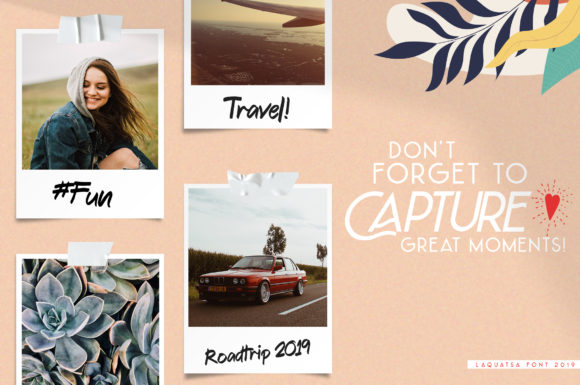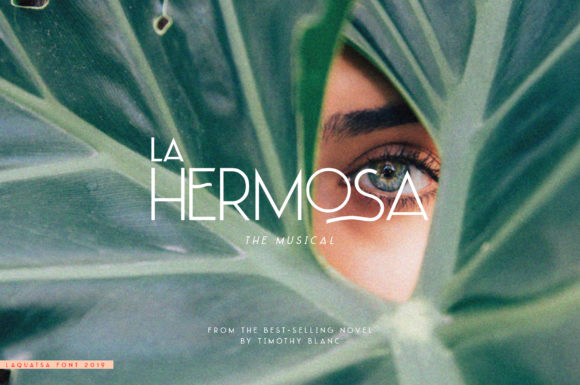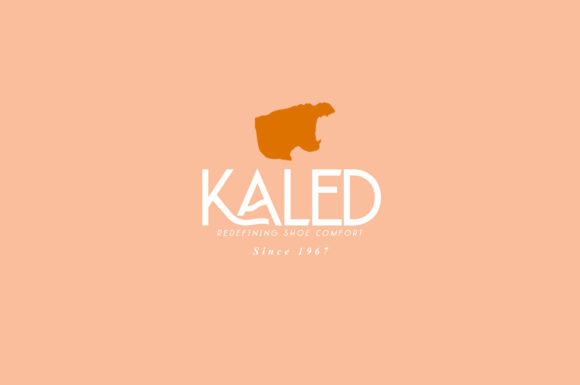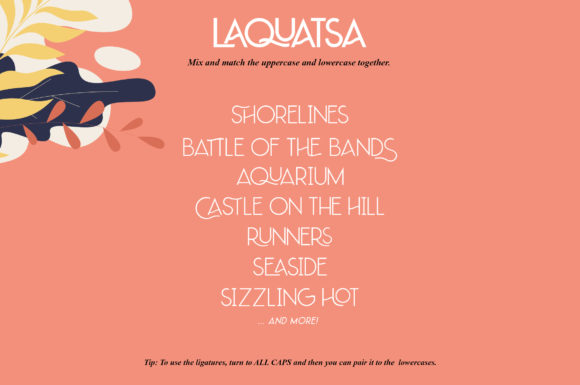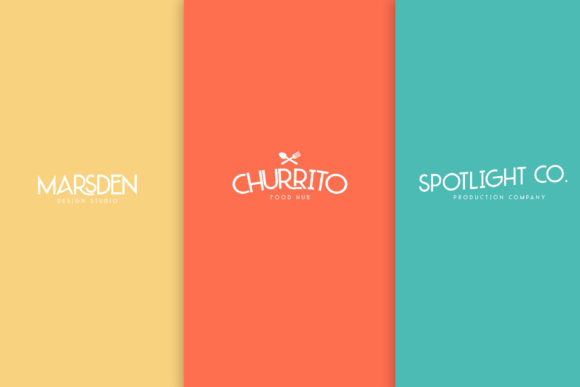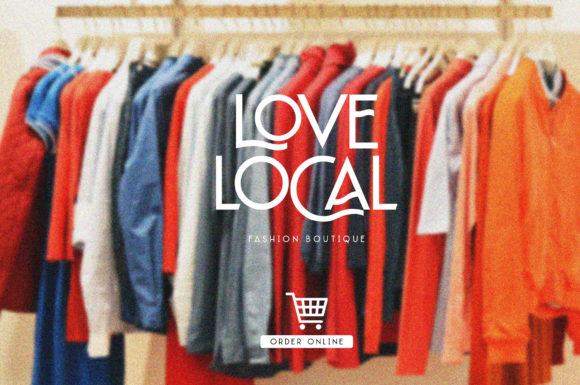
Introduction to Laquatsa Font
Let’s get tropical.
Laquatsa is a stunning and adorable sans serif font with an undeniably summery feel .
Key Features of Laquatsa Font
Why Choose Laquatsa Font?
Laquatsa Font offers exceptional quality and versatility, making it a valuable addition to your design toolkit. Whether you’re creating for personal projects or commercial use, Laquatsa Font delivers professional results.